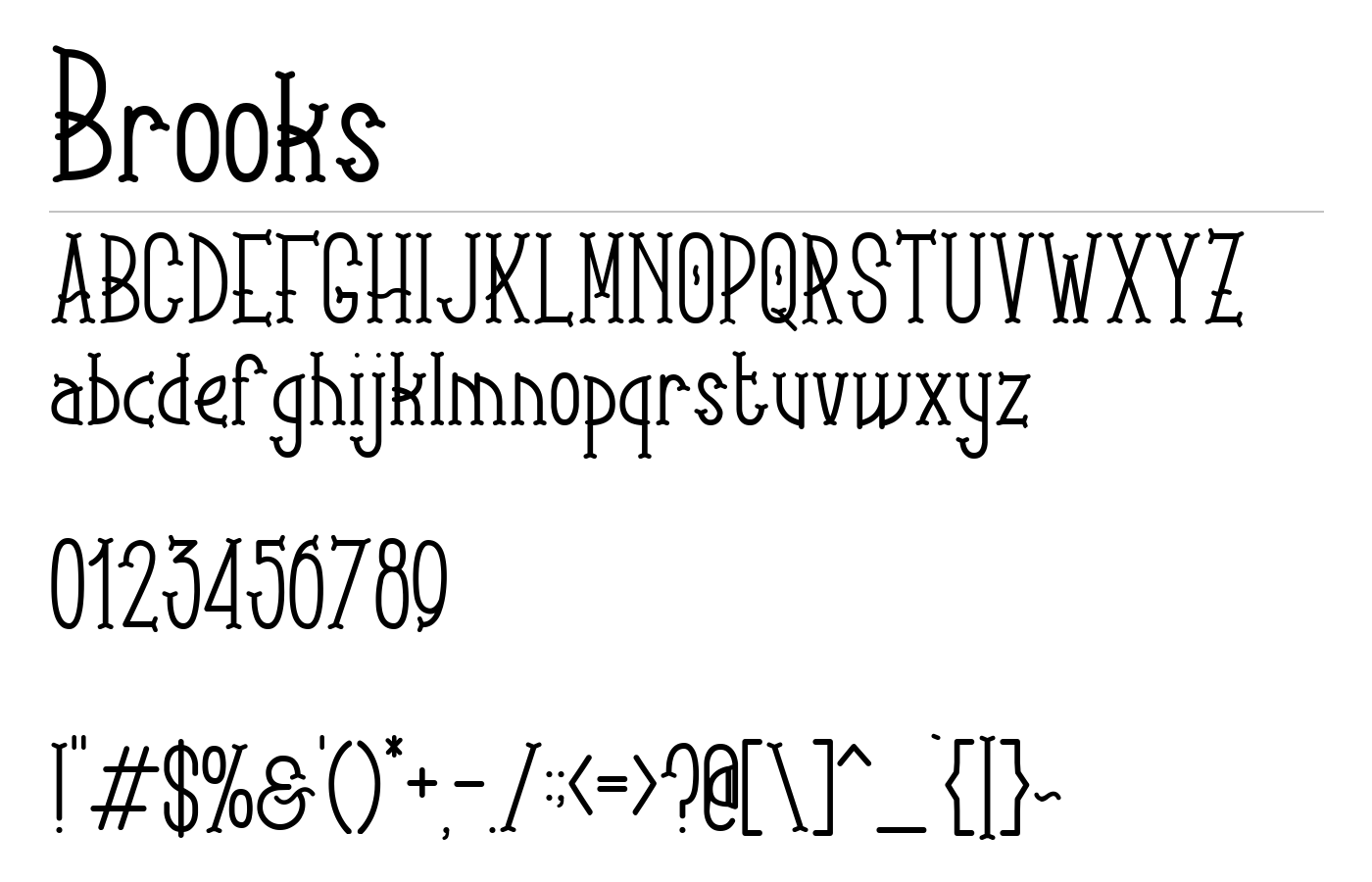
Brooks Font is a narrow, tall serif typeface with a quirky, vintage character marked by unique, decorative serifs and slender strokes. Its playful yet elegant style makes it perfect for creative branding, distinctive headlines, and artistic projects that want to blend a touch of old-fashioned charm with modern flair. This font works well where personality and style are key, such as posters, logos, and editorial designs.
Brooks Font
About Brooks Font